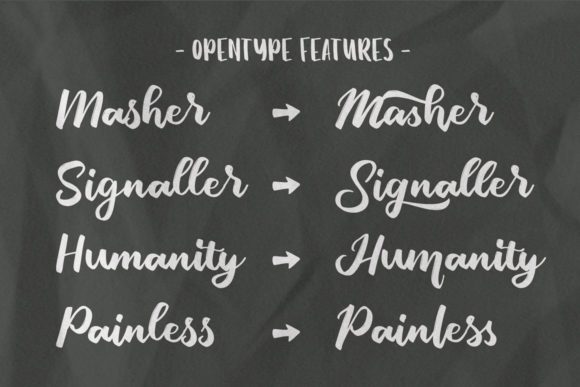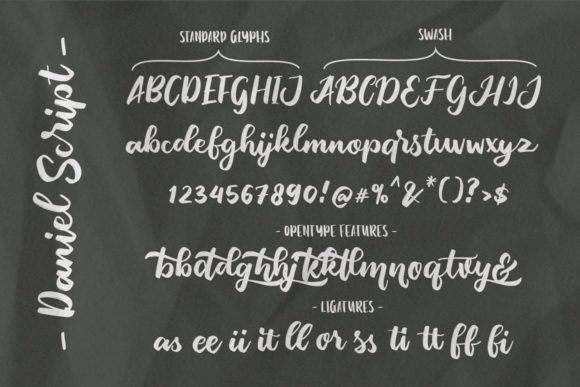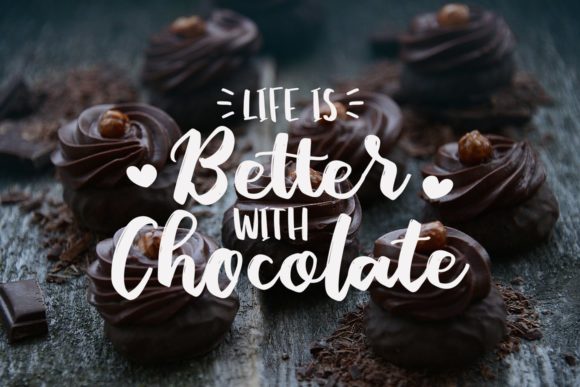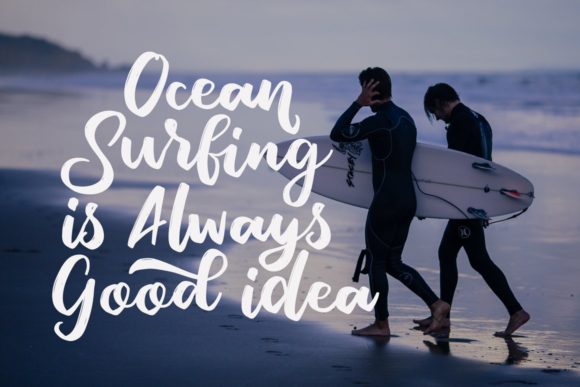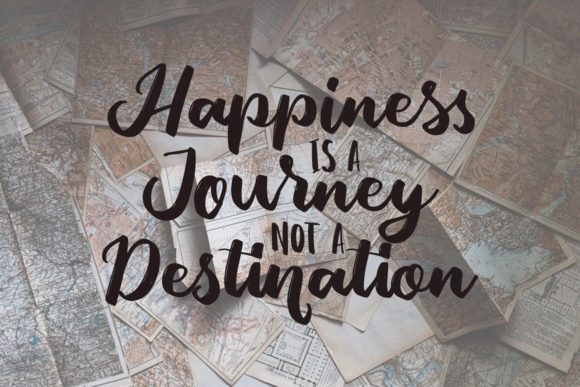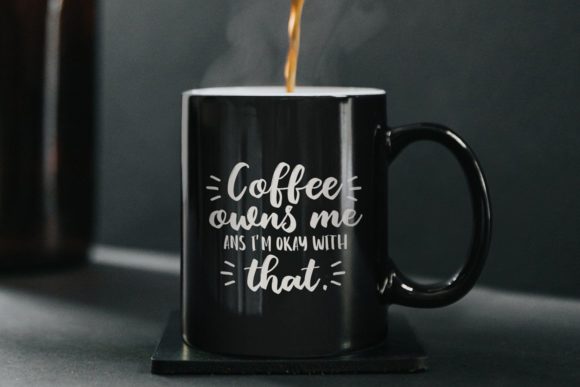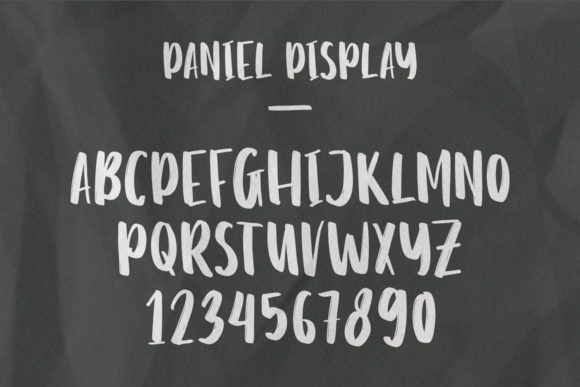
Daniel Font
About Daniel Font
Daniel is a beautiful handwritten font, created with the help of a brush pen. Its distinct and well rounded letters make this font a masterpiece. This font is PUA encoded which means you can access all of the glyphs and swashes with ease!